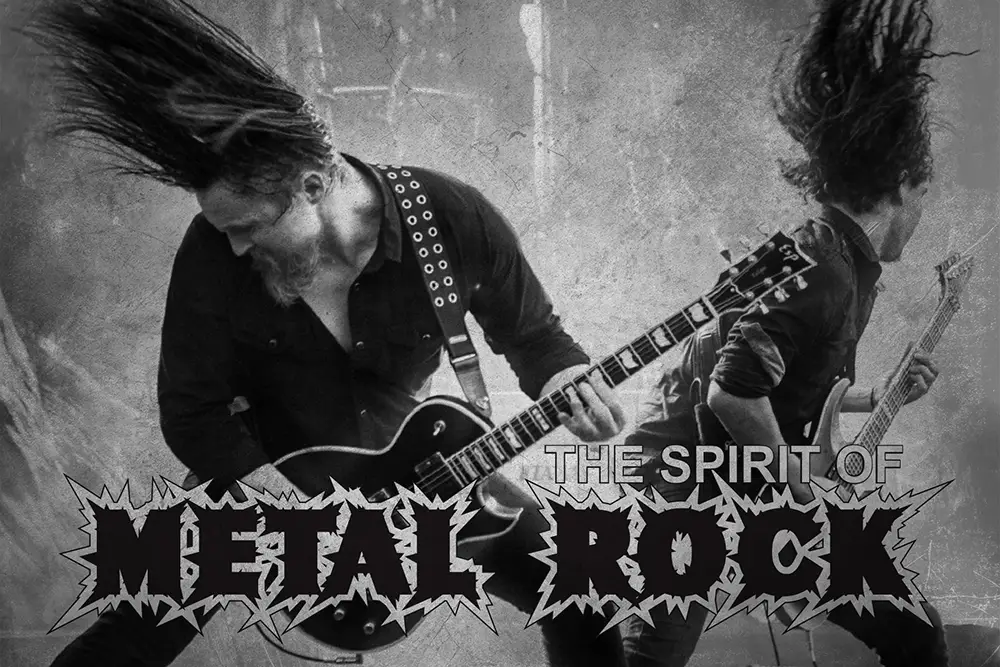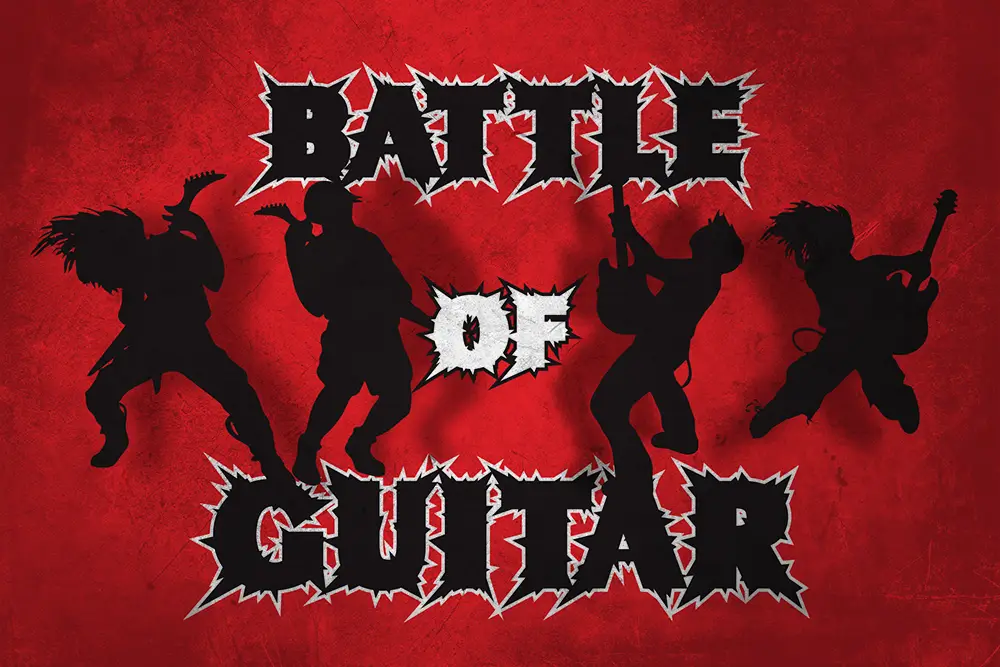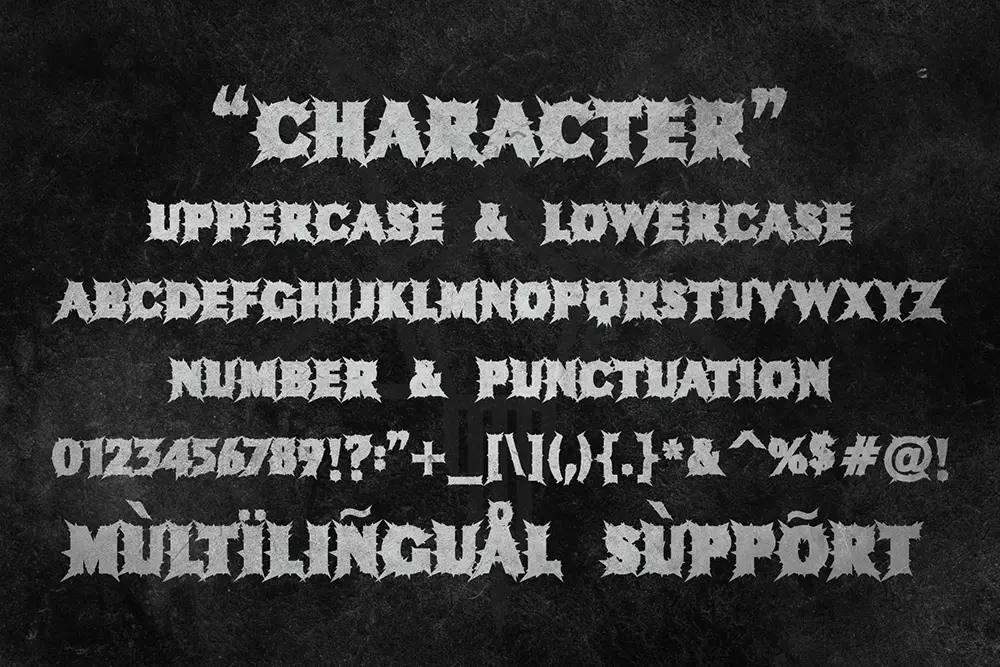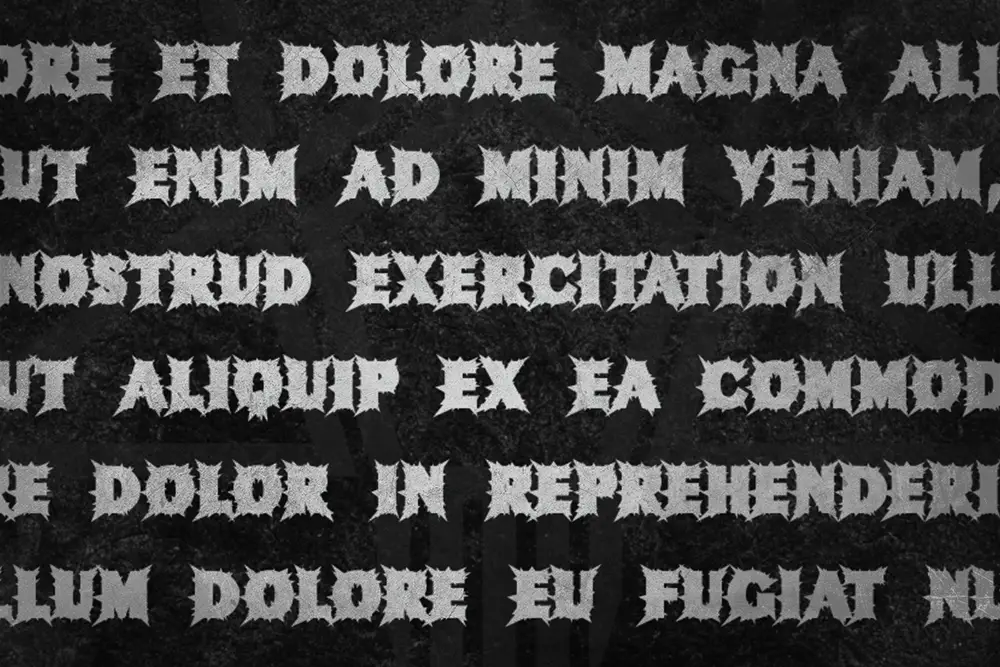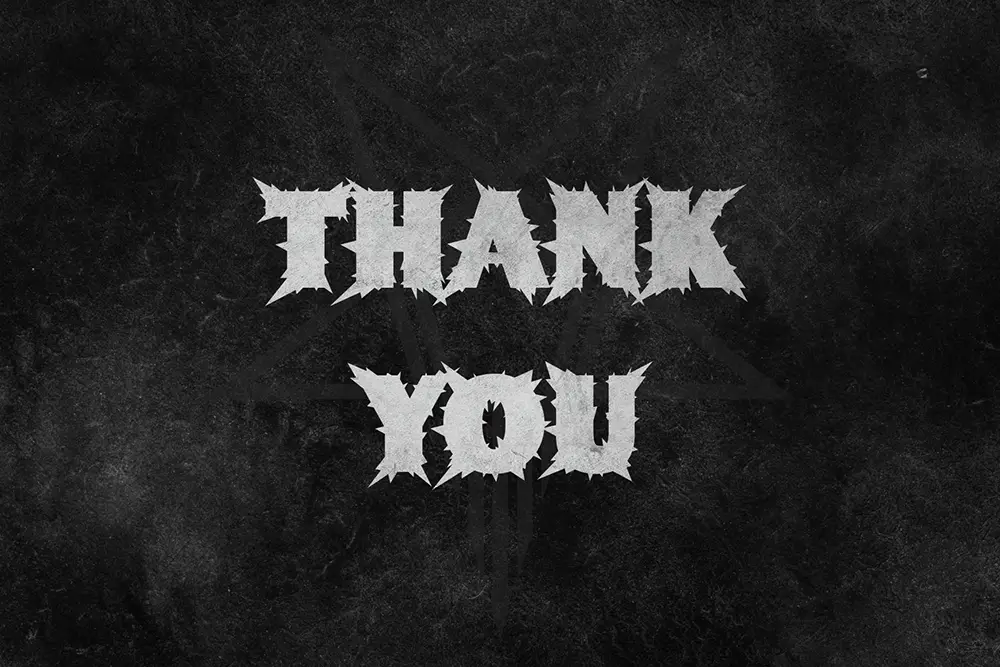
Magnekidz – Bold Blackmetal Font for Extreme Creative Power
Typography has the ability to capture culture, mood, and emotion in one glance. Magnekidz – Bold Blackmetal Font is designed to embody raw power, aggression, and extreme artistry. As a heavy all-caps bold blackmetal font, it pushes beyond conventional design, making it perfect for logos, posters, music branding, and bold statement visuals.
From underground bands to digital designers, anyone looking for a font that screams authority and strength will find Magnekidz indispensable.
Bold Blackmetal Font with All-Caps Authority
Magnekidz is built as a bold blackmetal font with sharp, jagged forms that reflect the raw energy of extreme music culture. Every letter in this all-caps typeface carries weight and intensity, ensuring your message is delivered with impact.
This design makes it perfect for metal band logos, festival posters, album art, and branding projects that demand an aggressive yet stylish tone. By using Magnekidz, you show your audience that your brand is bold, unafraid, and unforgettable.
Key Features of Magnekidz – Bold Blackmetal Font
Professional designers want fonts that offer both functionality and creativity. Here are the highlights of Magnekidz – Bold Blackmetal Font:
• Uppercase Only: Full all-caps character set for dramatic presence.
• Multilingual Support: Covers extended Latin characters for global design.
• Heavy Blackmetal Style: Inspired by extreme music typography.
• Perfect for Display Use: Ideal for logos, posters, album covers, and event branding.
• Sharp Edges & Bold Forms: Ensures your design dominates any layout.
Why Designers Love Magnekidz
Designers love Magnekidz because it captures the raw, rebellious energy that a bold blackmetal font should deliver. It goes beyond being just another heavy typeface; it becomes part of the design story.
• Instant Recognition: All-caps style ensures high visibility.
• Authentic Metal Aesthetic: Perfect for music, entertainment, and edgy branding.
• Global Reach: Multilingual support makes it usable across cultures.
• Pairing Friendly: Matches beautifully with serif fonts like Kastroz Luxury Vintage Serif Font for unique design contrasts.
Magnekidz for Logos and Music Branding
Music branding thrives on individuality, and typography is key. Magnekidz, as a bold blackmetal font, gives bands, record labels, and festivals a unique identity.
Its heavy all-caps design ensures logos are not only visible but unforgettable. Whether for album artwork, merchandise, or event visuals, Magnekidz communicates intensity and passion.
Magnekidz for Posters and Extreme Advertising
Event promotion needs fonts that grab attention instantly. Magnekidz excels as a bold blackmetal font for posters and bold advertising campaigns.
Its jagged strokes and heavy form dominate space, making it ideal for music festivals, underground events, or bold product launches that want to challenge the ordinary.
Magnekidz in Digital and Esports Media
Digital projects require fonts with strong visual presence. Magnekidz delivers exactly that. As a bold blackmetal font, it can be applied in esports branding, YouTube thumbnails, Twitch overlays, and other digital platforms where intensity and character are needed.
Pairing Magnekidz with a serif like Kastroz Luxury Vintage Serif Font creates balance between rebellion and refinement, producing a versatile aesthetic.
• Character Set: Uppercase (All Caps), Numbers, Punctuation
• Category: Bold Blackmetal Font
• Best Uses: Logos, Posters, Album Covers, Extreme Branding, Digital Media
Why Magnekidz is the Bold Blackmetal Font You Need
The world of typography constantly evolves, but extreme fonts like Magnekidz never go out of style. As a bold blackmetal font, it captures rebellion, power, and energy in every stroke.
Designers who invest in Magnekidz gain not just a font, but a tool for storytelling. Its multilingual support, all-caps authority, and included file formats make it ready for projects across the globe.
Magnekidz – Bold Blackmetal Font is more than a typeface; it’s a declaration of style and strength. Built for logos, posters, and music branding, this all-caps heavy font delivers unmatched intensity.
If you want to dominate your designs with a typeface that screams confidence and power, Magnekidz is your answer. Pair it with Kastroz Luxury Vintage Serif Font to create unique contrasts, or use it solo for full blackmetal energy.
Don’t just design—make an impact with Magnekidz.